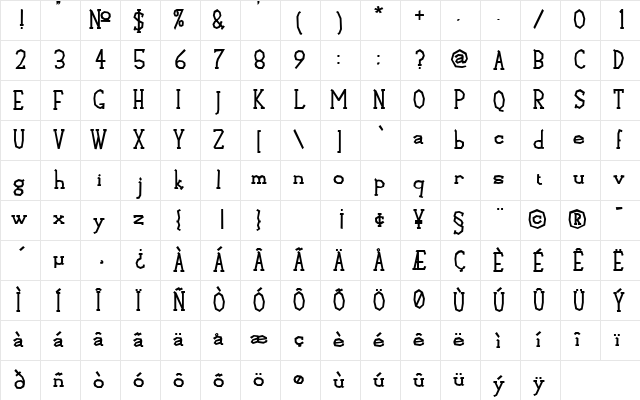
Empanel Bold Free Font
Empanel Bold
Empanel Family
Design Context for Empanel
Empanel is a composed and adaptable typeface that performs quietly and consistently across a wide range of design contexts. Its bold stroke weight gives it real presence on the page.